That grungy, old-fashioned signage look fonts will never go out of style. If you needed a vintage design to make done you come to the right places, as we have a collection of best stamp fonts for your attention.
All of these stamp fonts has been crafted by professional designers and are at the best quality no matter it is free or premium font. So why not to try these fonts for your design project if you need to add them for for dates, labels, and letters. The stamps come in all shapes, sizes, color, and uses.
Duarose – Vintage Font (Rouge & Stamp)
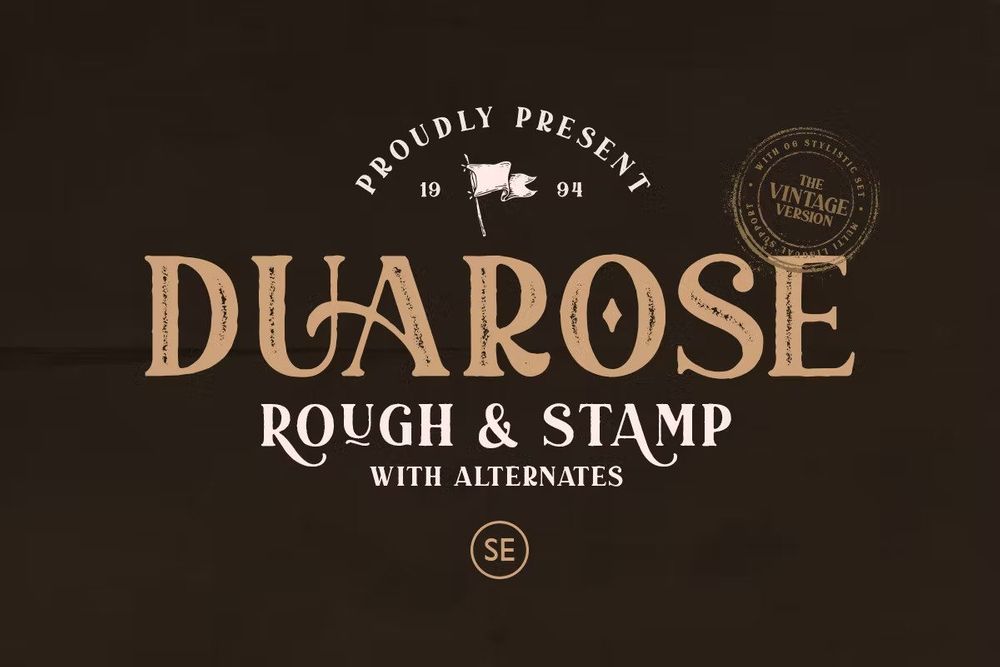
It is a classic and vintage serif with a bunch of alternates up to 6 style for each characters that will make your presentation or logo even more stunning and stand out.
Autogate Stamp Font
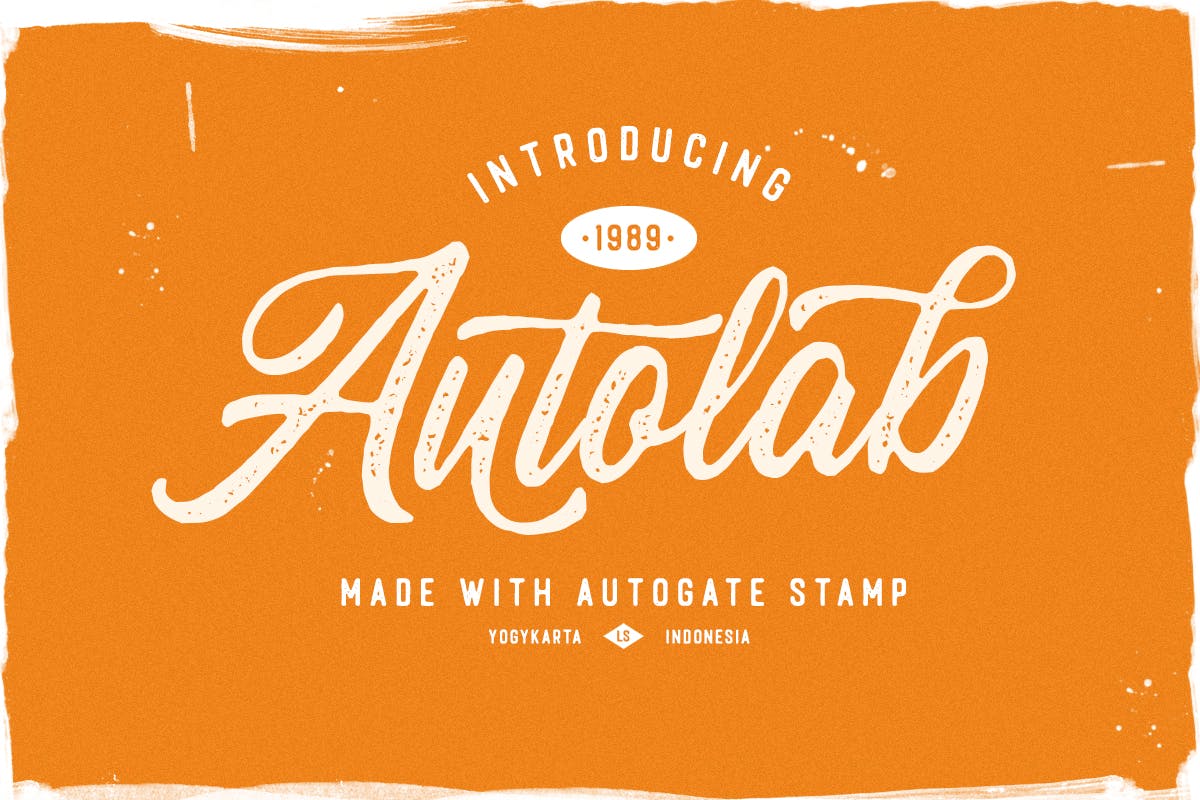
The natural and rustic feel is really perfect for you who needs a typeface for especially logotypes, apparels, invitations, branding, packaging, advertising and etc.
Handler Stamp Font
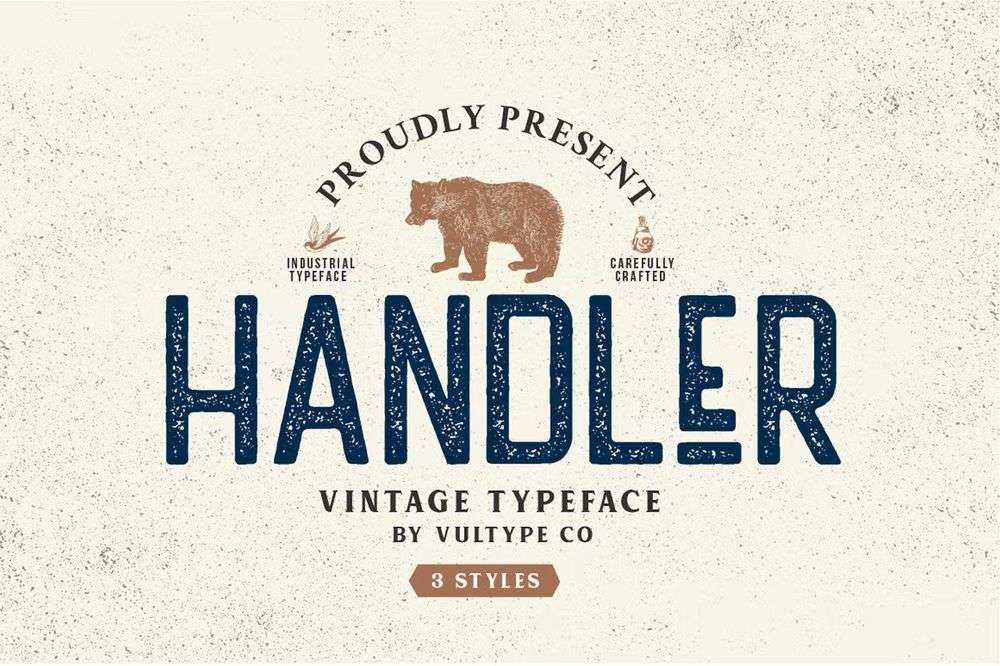
This font including textured, rough & clean version, suitable for your next creative project like art, modern envelopes lettering or book designs, craft designs and etc.
Chillvornia Stamp Font
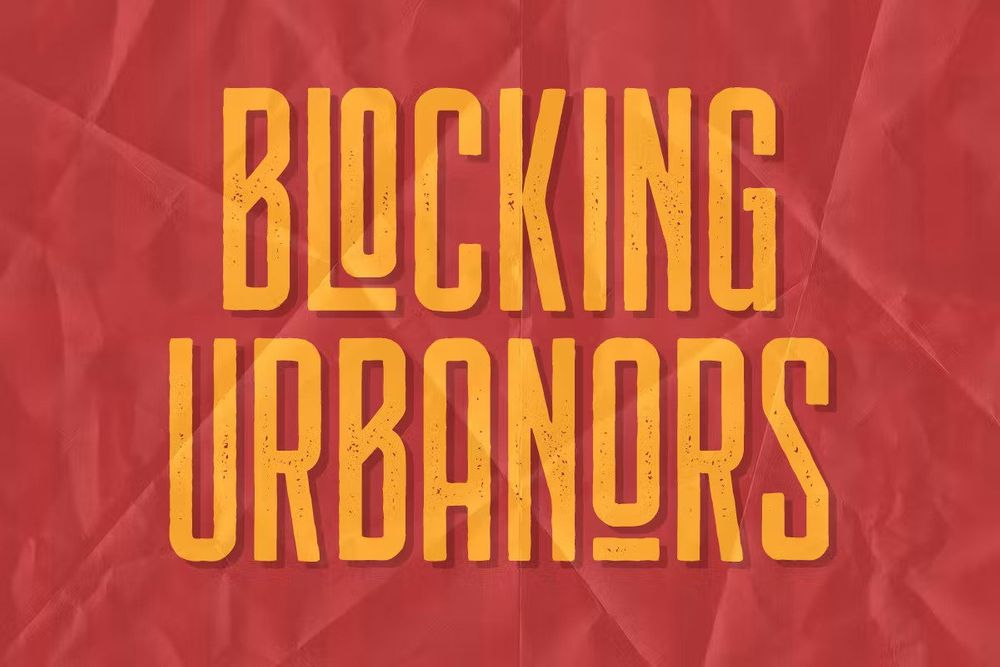
It is a family sans serif font designed with carefully handcrafted and is suitable for branding, t-shirts, wedding Invitations, classic designs, logotype, and any other project.
Marinaio Font Family
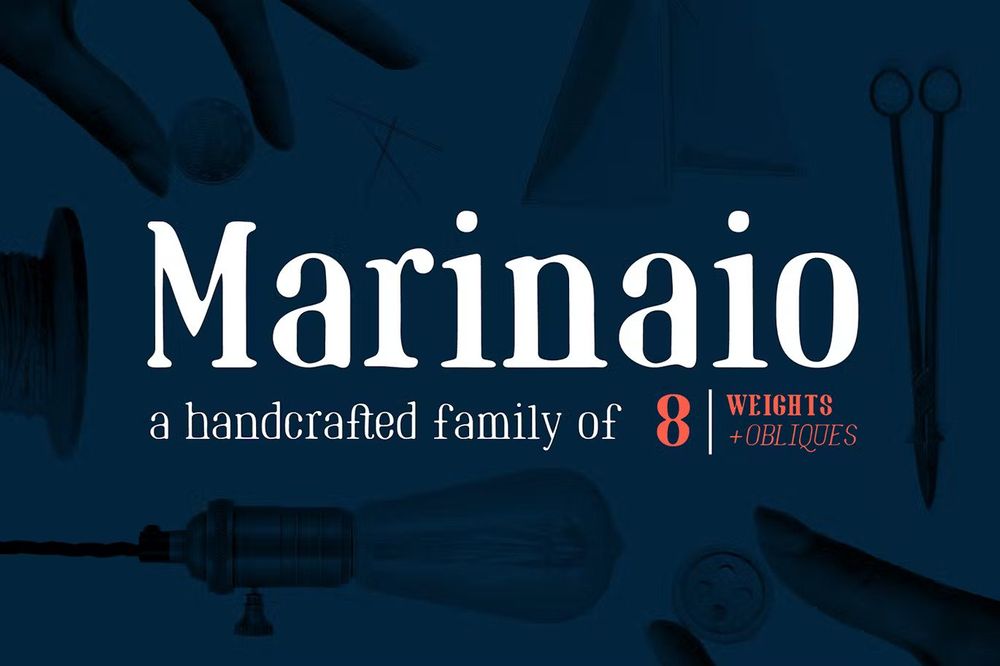
This font family was inspired by rubber-stamping and carving. Perfect for business cards, custom stamps, coffeetable books, letterhead, invitations and many more.
Hesland – Vintage Script Font
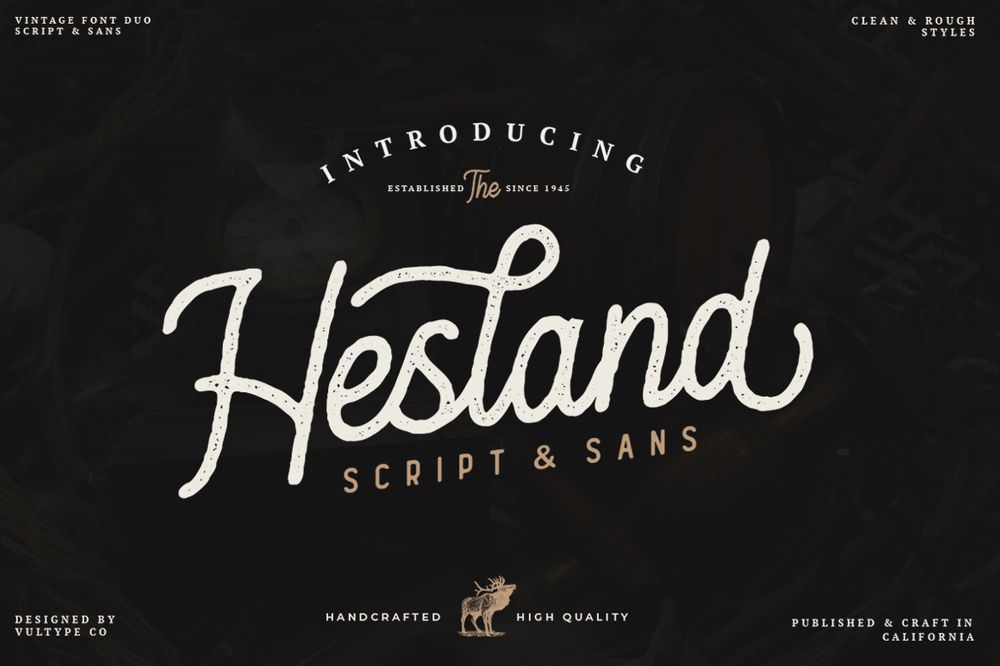
Inspired by the vintage old american which has two styles, clean and stamped. This font is perfect for logotypes, branding designs, vintage logo designs, digital lettering arts, vintage lettering and etc.
Folkner – Vintage Typeface
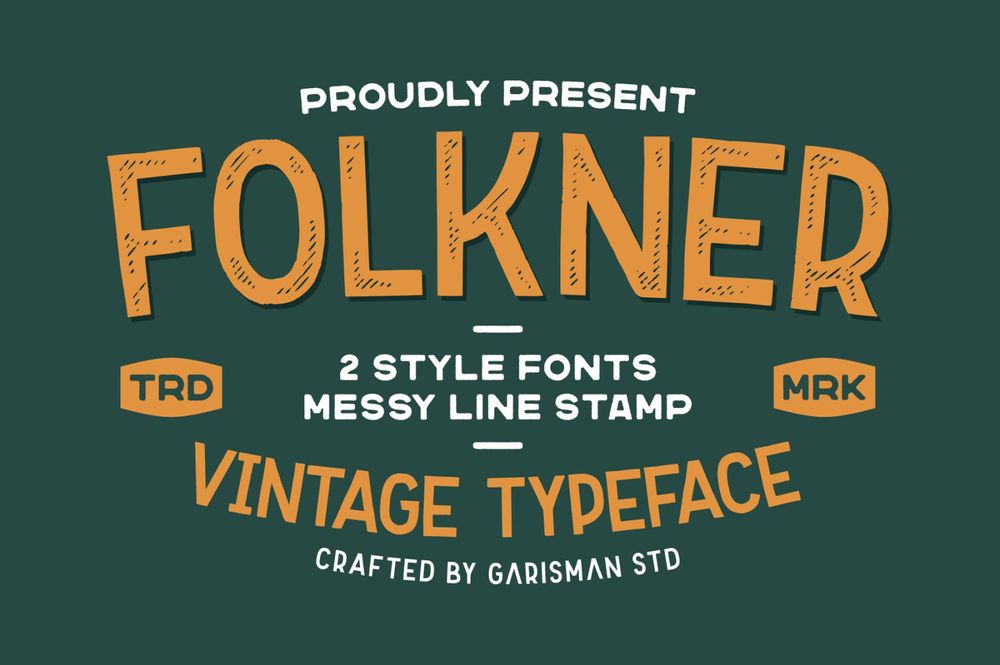
This font gives a feel of a vintage, classic, old, and based on handmade. Suitable for any graphic designs such as branding materials, t-shirts, print, business cards, logos, posters, photography, quotes and etc.
Austral Slab Stamp
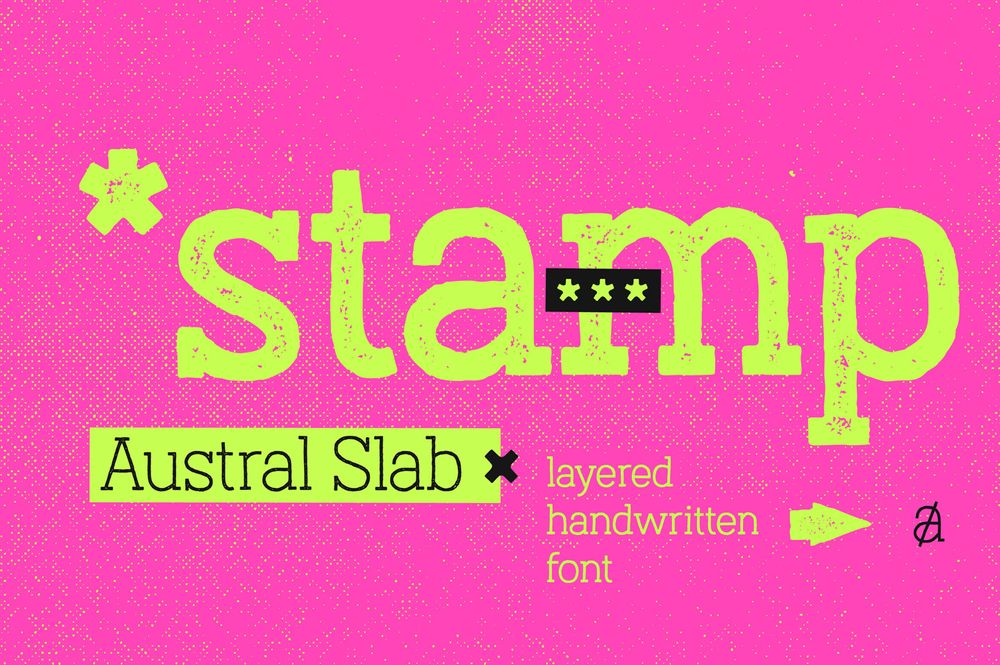
It is a hand-drawn layered font comes in three weights, regular, light & thin so good for logos & branding, stationery, book covers, magazine designs, clothing prints & tags.
Moanster Vintage Stamp
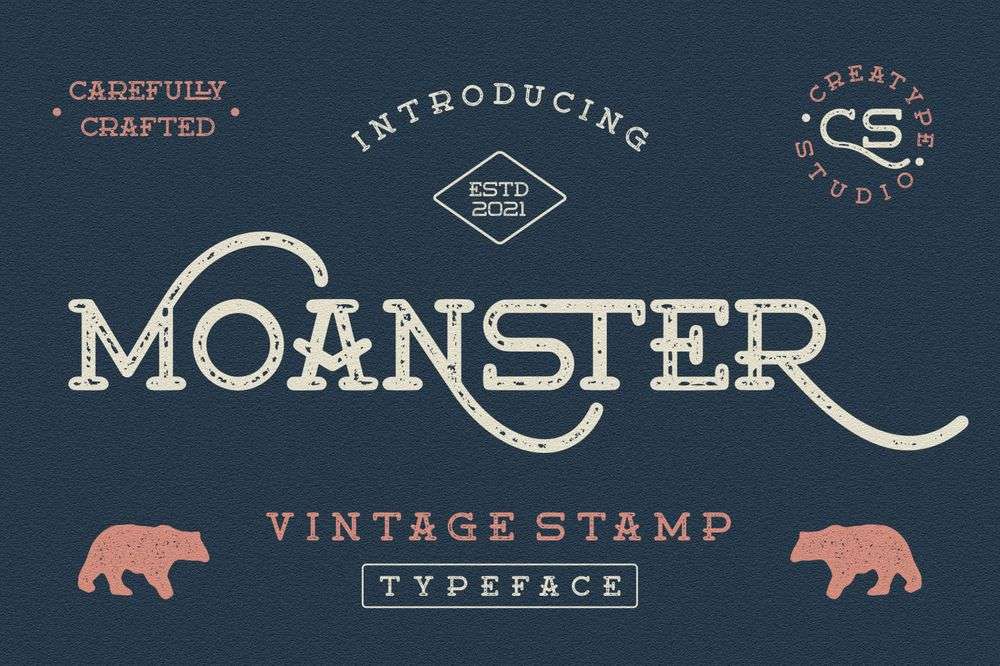
It is vintage font with stamp effect that old looks and retro style. Perfect for branding projects, logos, wedding designs, social media posts, advertisements, product packaging, product designs, labels, photography and etc.
Kionsa Stamp – Vintage Display Font
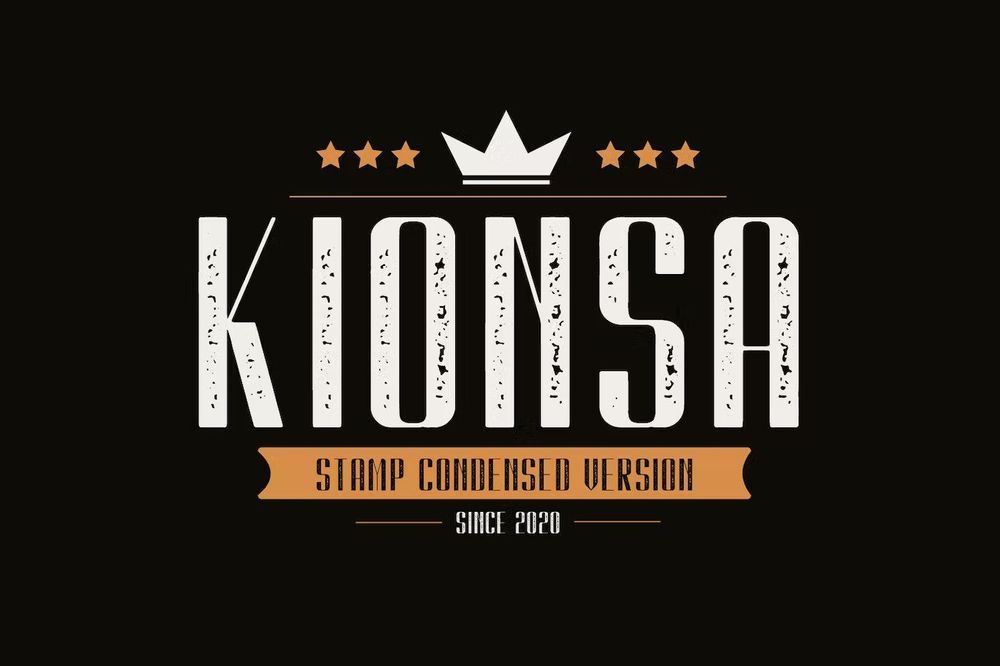
It is a vintage display font including regular and slant versions. Perfect for logos, name cards, magazine layouts, invitations, headers, or even large-scale artwork.
Andora Typeface Stamp
A hand lettered font with clean style and casual. It’s perfect for branding projects, product packaging, tshirt designs or simply as a stylish text overlay to any background image.
Free Holtzberg Font
It is a free vintage stamp font so good for your projrects such as packaging, logos, invitations, posters and etc.
Free Hantavirus Hand-Drawn Font
It’s a free font family includes three styles – regular, rough, and rougher. Ideal for titles, covers, posters, packaging and etc.
Free Stamp Co Sans Font
Free vintage & grunge style sans serif font so good for oldish designs, vintage cards, posters, flyers, packaging and etc.
Ribons – Vintage Stamp Version
A vintage stamp version font including regular and oblique versions. Perfect for logos, name cards, magazine layouts, invitations, headers, or even large-scale artwork.
Enternal Vintage Stamp Typeface
It is a vintage sans serif family with stamp textured effect coming with ligature and bunch of alternates. Ideal for branding projects, logos, wedding designs, social media posts, advertisements, product packaging and etc.
Antipathy Stamp Retro Font
It is retro stamp font which like using stamp effect with rough texture will perfect for grunge or vintage project. Ideal for branding projects, logos, wedding designs, social media posts, advertisements, product packaging and etc.
Punizione – Vintage Font
It is a fresh bold vintage font available in two styles; clean & stamp. Ideal for packaging, logos, posters, covers, flyers and etc.
Stampline – Stencil Typeface
It’s a stencil stamp typeface for your vintage designs such as logotypes, labels, badges, headlines, signatures, packaging and any more.
The Bhortead – Vintage Stamp Font
This font has 2 styles namely clean and rough so perfect for creating the traditional style logos, labels, package designs, lettering for t-shirts and much others.
Brocades – Crafted Font